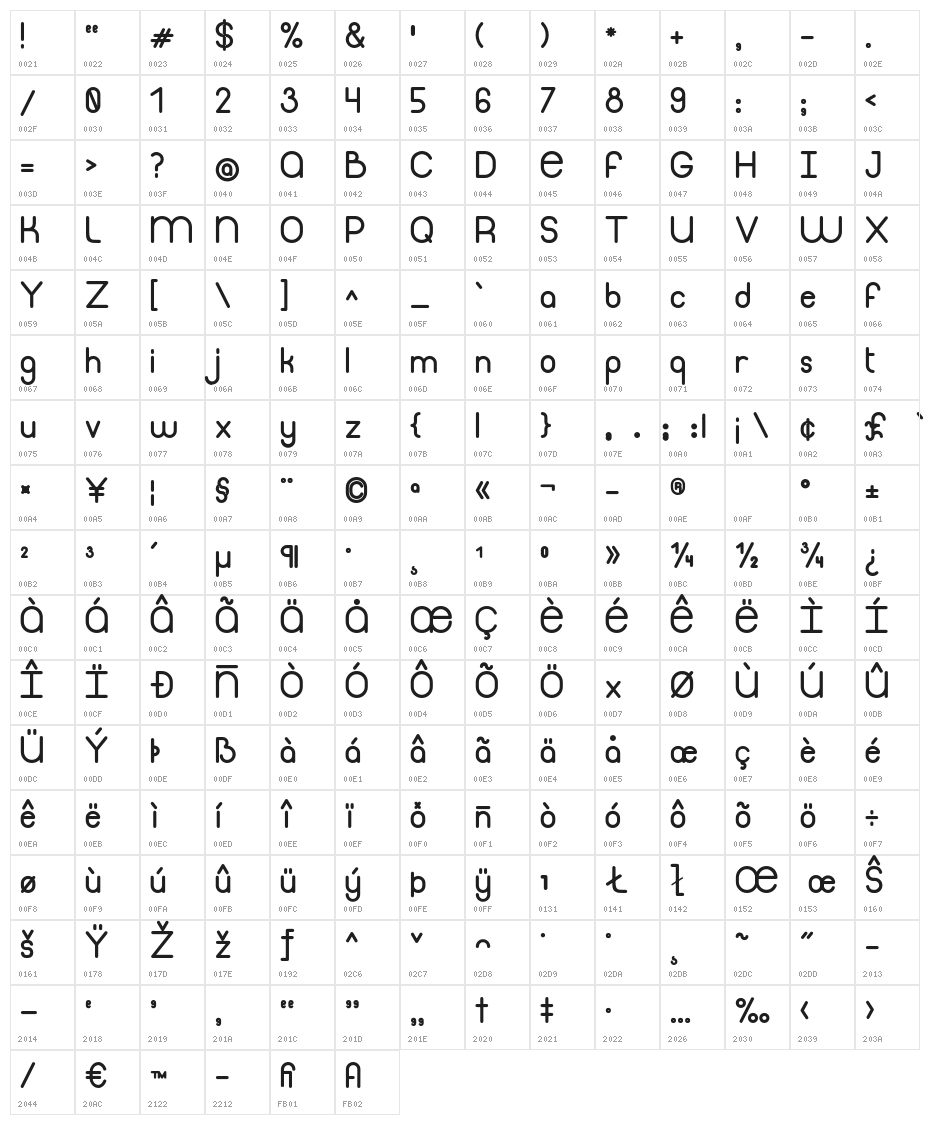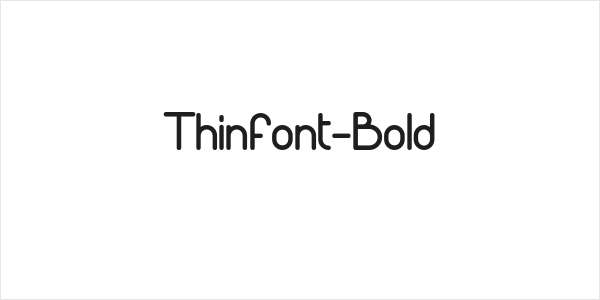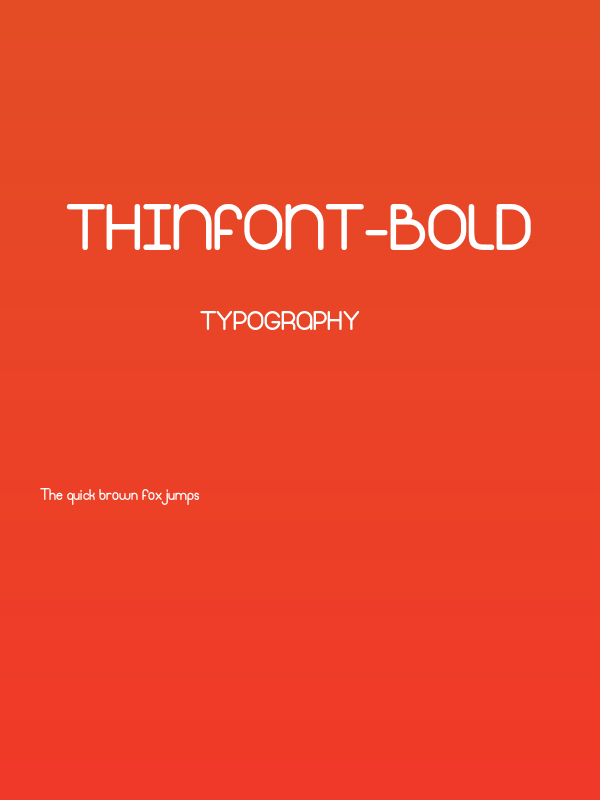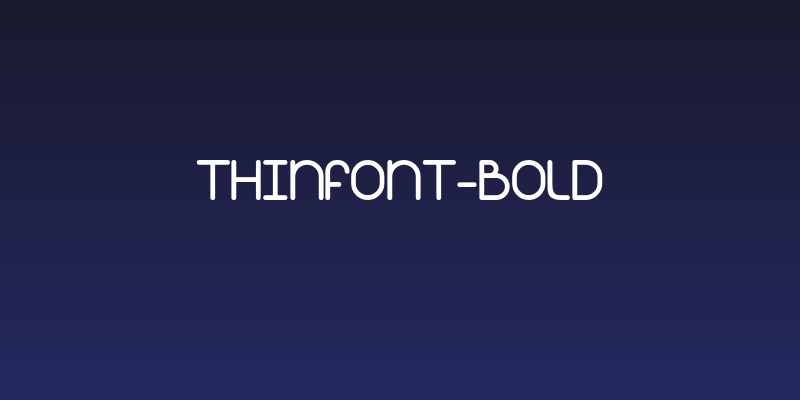
Thinfont-Bold Font
Thinfont-Bold Description
This font features a modern, rounded sans-serif style with a bold weight. The characters are uniformly thick, providing a consistent and clean appearance. The rounded edges give it a friendly and approachable feel, while the boldness ensures strong visibility and impact. The numerals and special characters maintain the same rounded and bold characteristics, ensuring uniformity across all glyphs. This font is versatile, suitable for both digital and print media, and can be used effectively in various design contexts.
| Proposed Projects | Ideal for branding, advertising, headlines, and user interface design where a modern and friendly appearance is desired. |